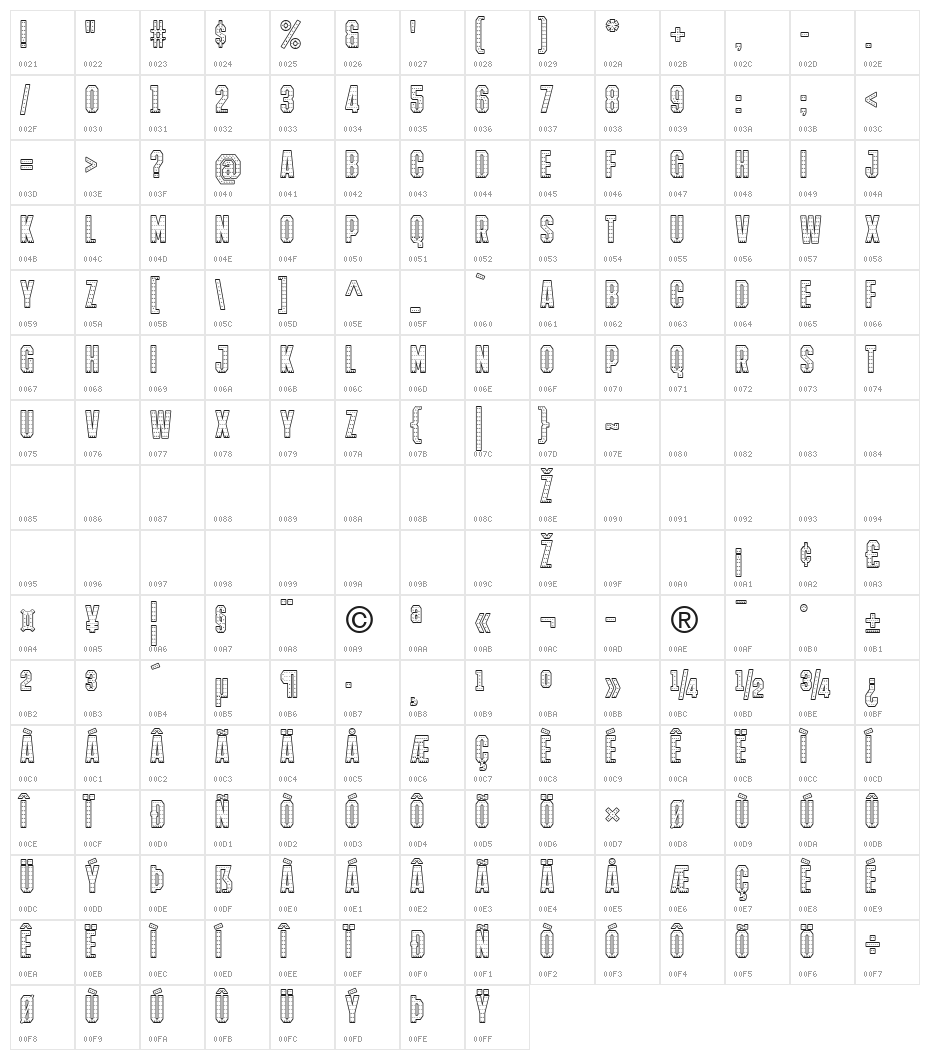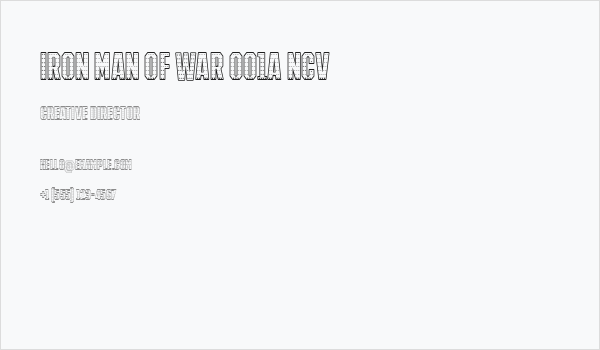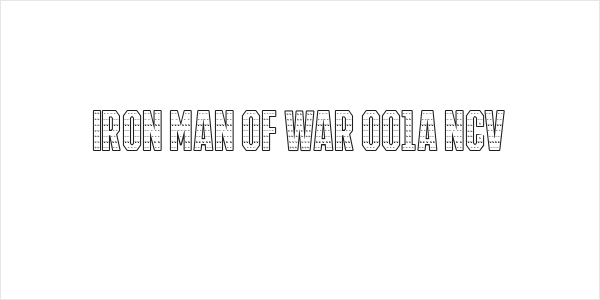
IRON MAN OF WAR 001A NCV Font
IRON MAN OF WAR 001A NCV Description
This font features a bold, industrial design with a distinct rivet pattern inside each character, giving it a rugged, metallic appearance. The letters are blocky and uppercase, with a uniform thickness and a slight 3D effect created by the shadowing. The font's style is reminiscent of machinery and heavy industry, making it ideal for projects that require a strong, impactful visual presence. The numbers and special characters maintain the same robust design, ensuring consistency across all text elements.
| Overall Style | Industrial, Rugged |
| Proposed Projects | Ideal for branding in the automotive or construction industries, poster designs, video game titles, or any project needing a strong, industrial aesthetic. |